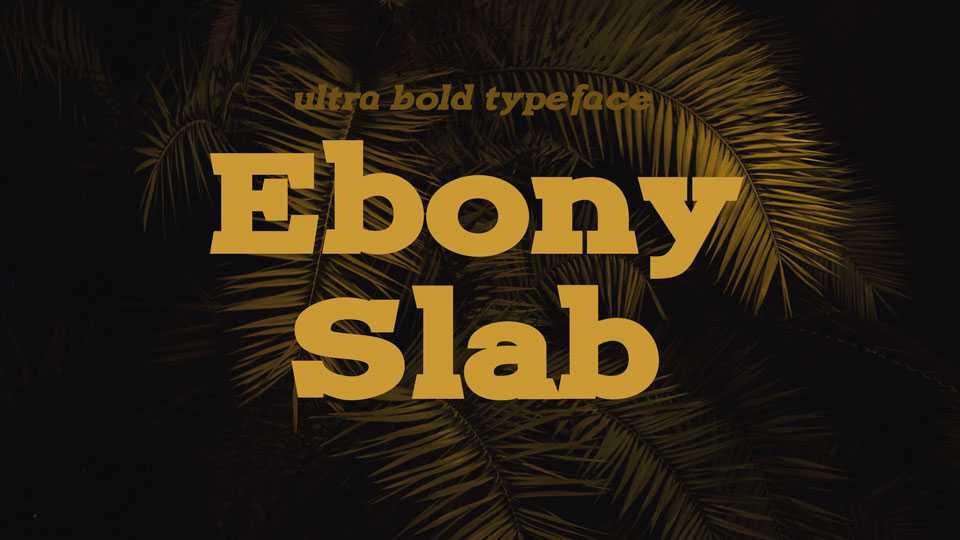
Download Ebony Slab font family, an ultra bold slab serif in Regular and Italic weights. Great for a display purposes, loud headlines, attractive banners and posters, signage and more.
Designer: Nick Cottrell